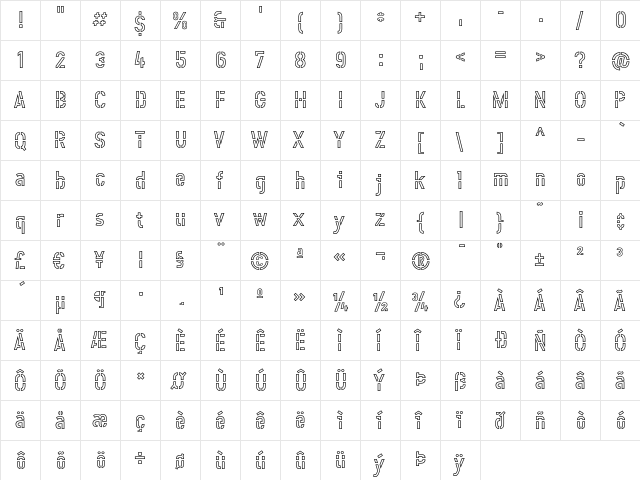
Offline Outline Font Preview
Offline Outline
Offline Outline Font Details
| Style | Outline |
Design Context for Offline Typeface
Offline brings ornamental detail and strong personality to headlines and identities, where visual impact matters more than quiet functionality.
Font Pairing: Pair with a clean neutral sans-serif for body copy to let Offline's character lead without overwhelming the composition.
Pro Tip: Treat Offline as the centrepiece of your typographic hierarchy. One strong heading set in a decorative face can carry an entire layout.